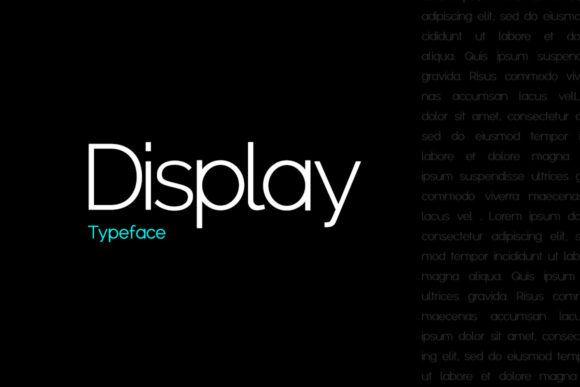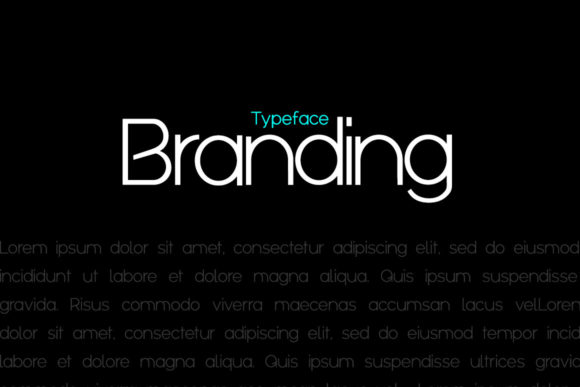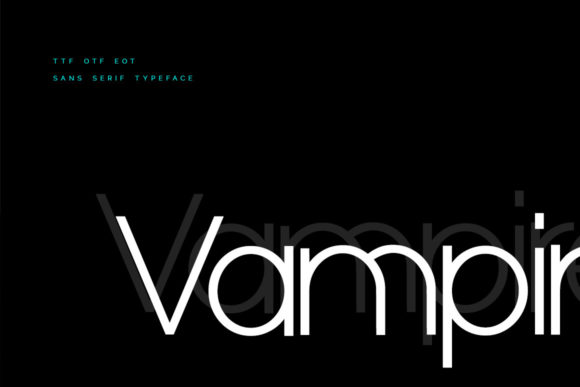
The Birth of a Design Icon: Carbon Font
Have you ever been working on a design project, and suddenly, the perfect font pops into your head? For designers, this moment is pure magic. It’s the spark that ignites creativity and sets the tone for the entire project. For many, this moment has arrived with the Carbon Font – a simple yet powerful sans serif font that elevates any design to new heights.
Carbon Font is more than just a font – it’s a versatile tool that adapts to any context. Whether you’re working on a busy website or a sleek magazine, Carbon Font shines through with its modern aesthetic. As a designer, you know how crucial it is to have a reliable font that can handle any situation. That’s where Carbon Font comes in – a valuable addition to your design arsenal.
Key Features of Carbon Font
- Font Family: Carbon Font offers a range of font families, including Carbon Light, Carbon Regular, Carbon Medium, Carbon Bold, and Carbon Extra Bold.
- Unique Characteristics: Carbon Font features a unique blend of geometric and organic elements, resulting in a distinctive and modern aesthetic that is both elegant and sophisticated.
- Language Support: Supports a wide range of languages, including Latin, Cyrillic, Greek, and many others, making it a versatile choice for global design projects.
Carbon Font Review
Overall, I was excited to try the Carbon Font and see if it would live up to its sleek and modern promise. Here’s my honest review:
- Unique Style: Carbon Font has a distinct, high-tech feel that’s perfect for futuristic or tech-related projects.
- High Legibility: The font is designed to be easily readable, even at small sizes, making it ideal for body text or captions.
- Extensive Character Set: Carbon Font includes a wide range of characters, including Latin, Cyrillic, and Greek alphabets.
- Limited Variations: While the font has a unique style, there aren’t many variations to choose from, which might limit its versatility.
- No Italic or Oblique: Unfortunately, the font doesn’t come with italic or oblique styles, which might be a drawback for some designers.
Overall, Carbon Font is a solid choice for projects that require a modern, high-tech look. While it has some limitations, its unique style and high legibility make it a great option for designers looking for a fresh, futuristic font.
For optimal results, use Carbon Font in conjunction with a clean and minimalistic design aesthetic.
Experiment with different font sizes and combinations to create a visually appealing layout.
Carbon Font is ideal for:
Creating a modern and sleek brand identity.
Designing digital products and interfaces.
Developing a consistent visual language across marketing materials.
Alternatives to Carbon Font
Inter Font is a highly legible and modern sans-serif font. It is designed to be clear and easy to read in digital media, making it suitable for body text and long-form content. Inter Font is a great alternative to Carbon Font for designers who want a clean and minimalist look. Compared to Carbon Font, Inter Font has a more subtle and neutral aesthetic, making it a great choice for applications where a neutral tone is desired.
Public Sans Font
Public Sans Font is a modern sans-serif font designed for digital use. It is highly legible and features a clear, open design that makes it suitable for body text and headings. Public Sans Font is a great alternative to Carbon Font for designers who want a font that is highly readable and versatile. Compared to Carbon Font, Public Sans Font has a more open and airy feel, making it a great choice for applications where a sense of space and clarity is desired.
Carbon Font is a TrueType font with a comprehensive character set, including Latin, Greek, and Cyrillic scripts. It supports various font formats, including OTF, TTF, and WOFF. The font is also optimized for use on various screen resolutions and devices, including desktops, laptops, tablets, and smartphones. Carbon Font has a high x-height, which makes it highly legible even at small font sizes.